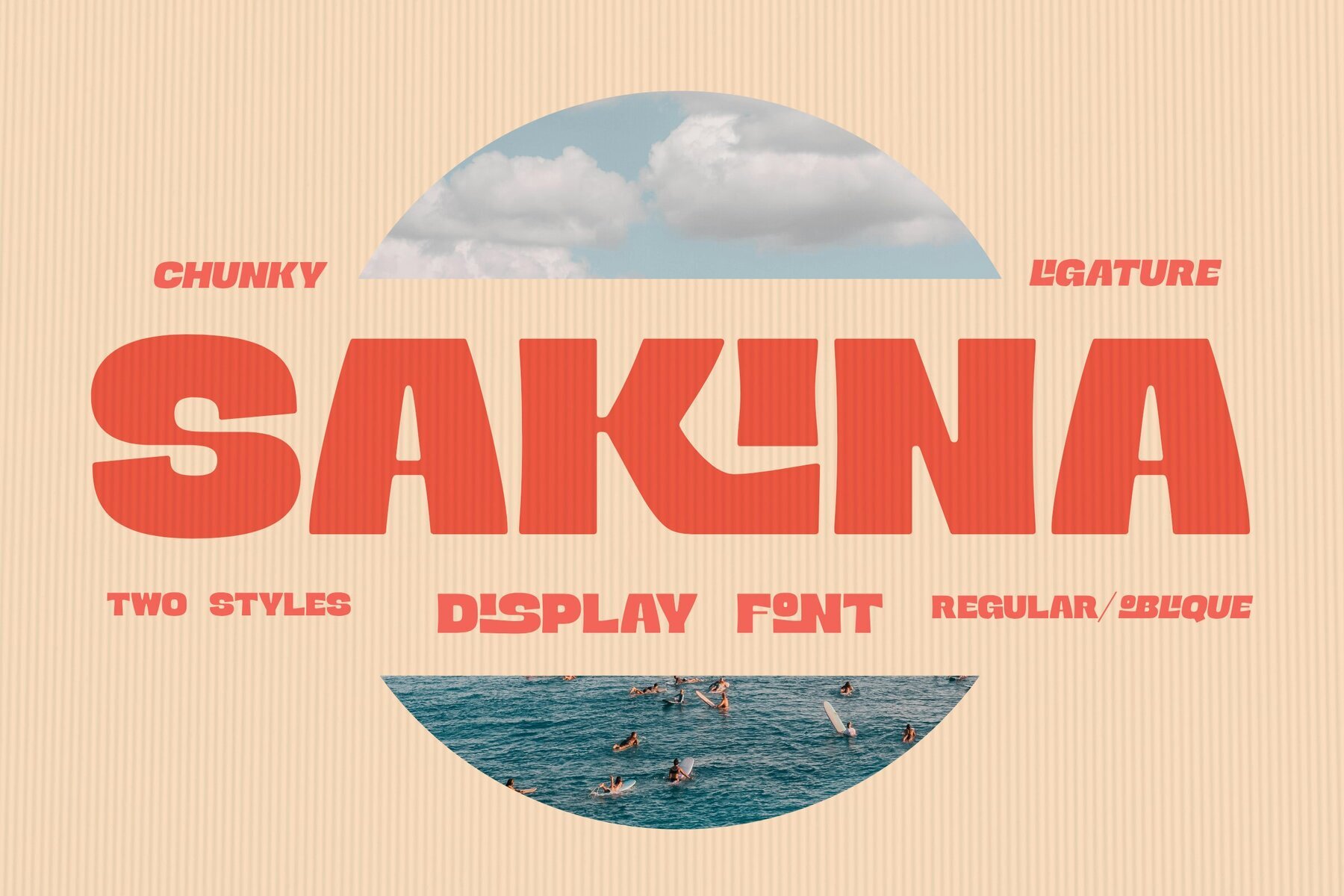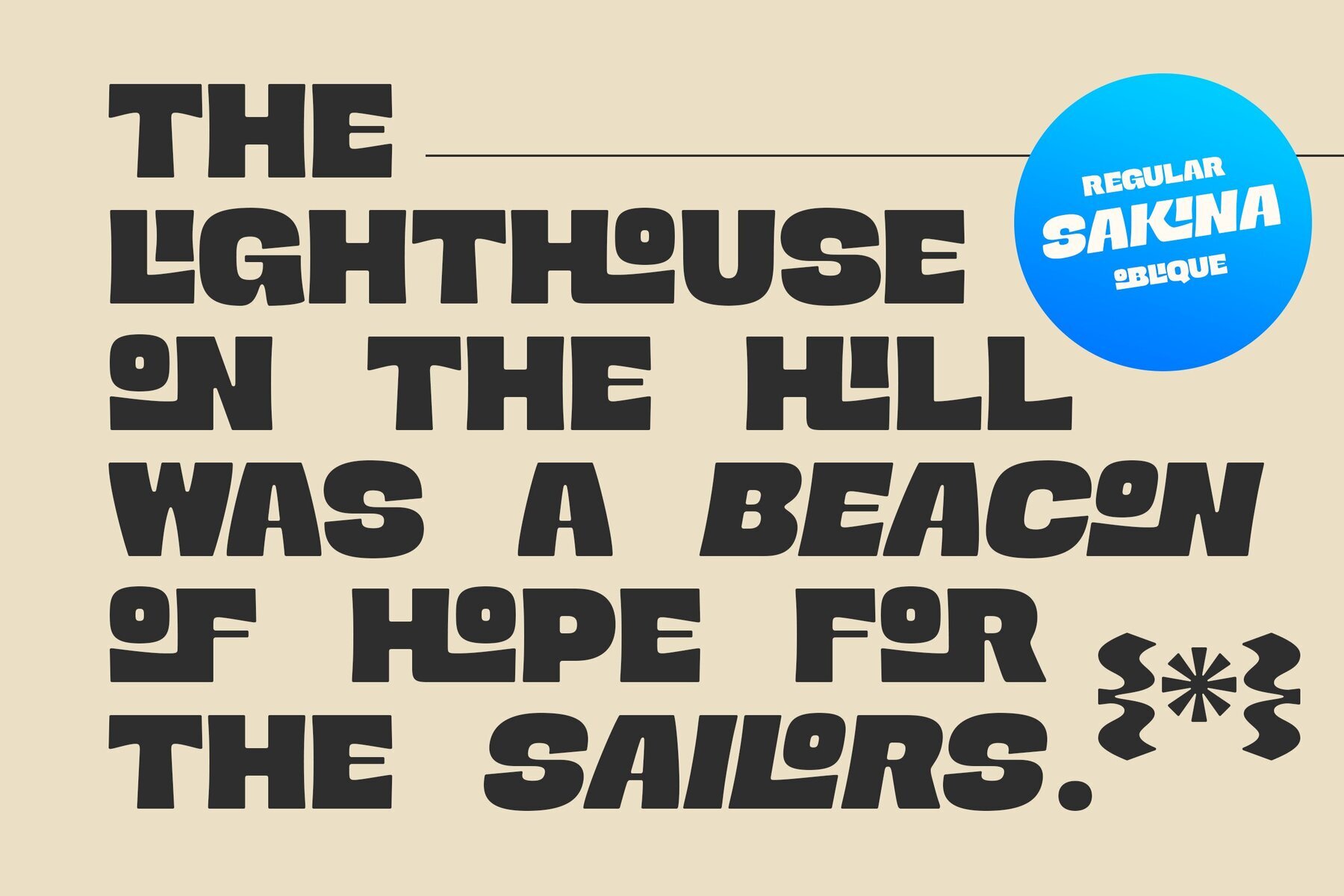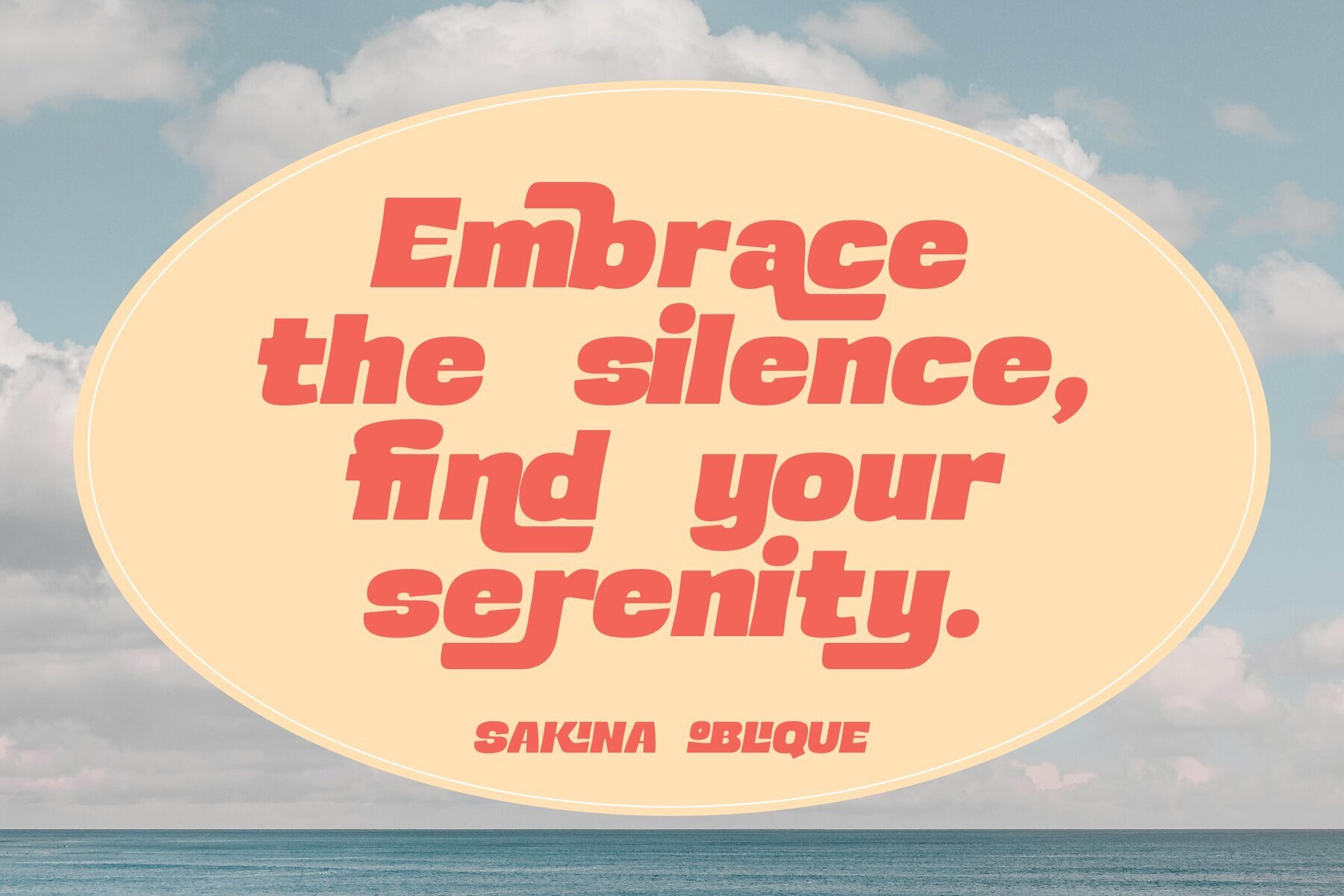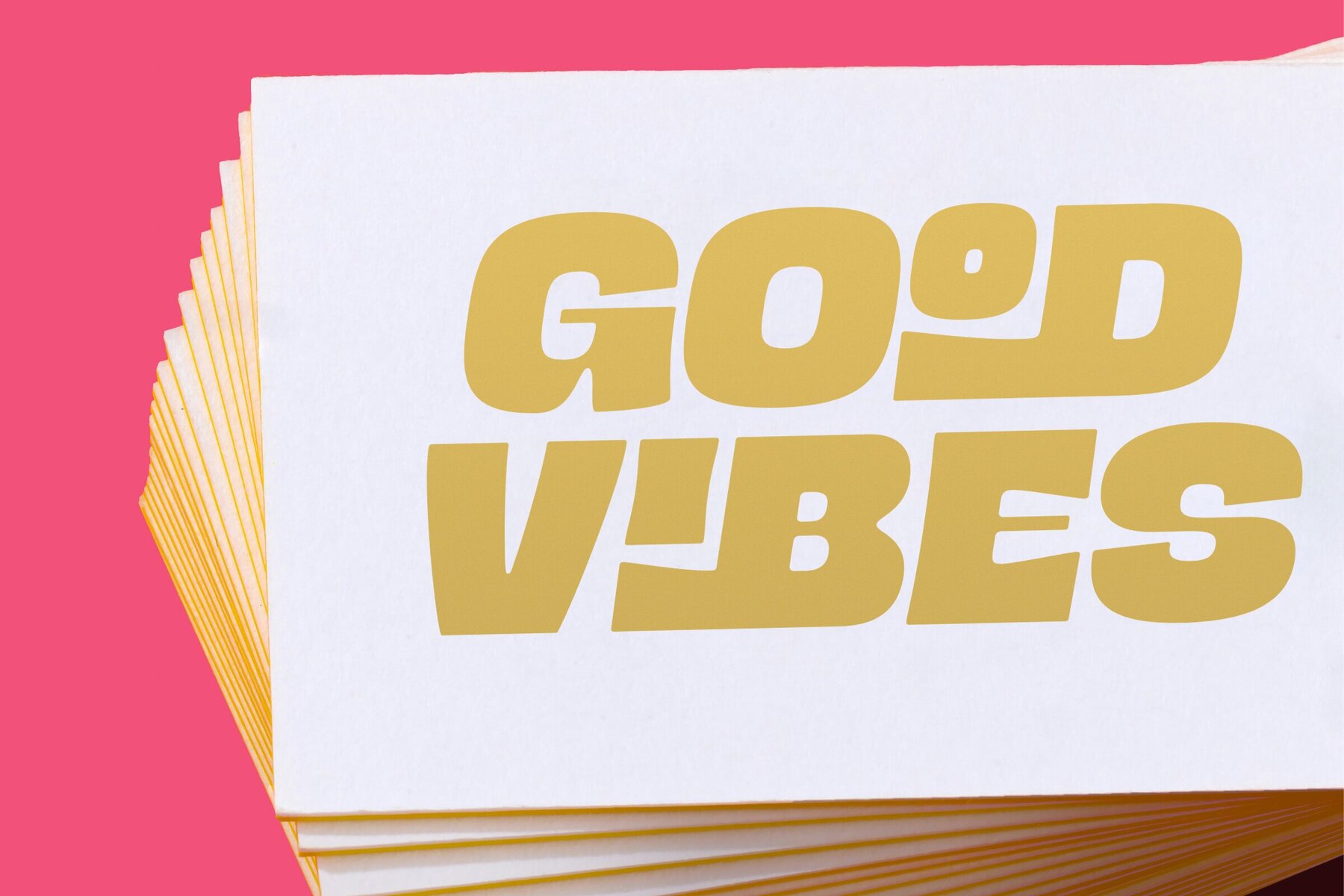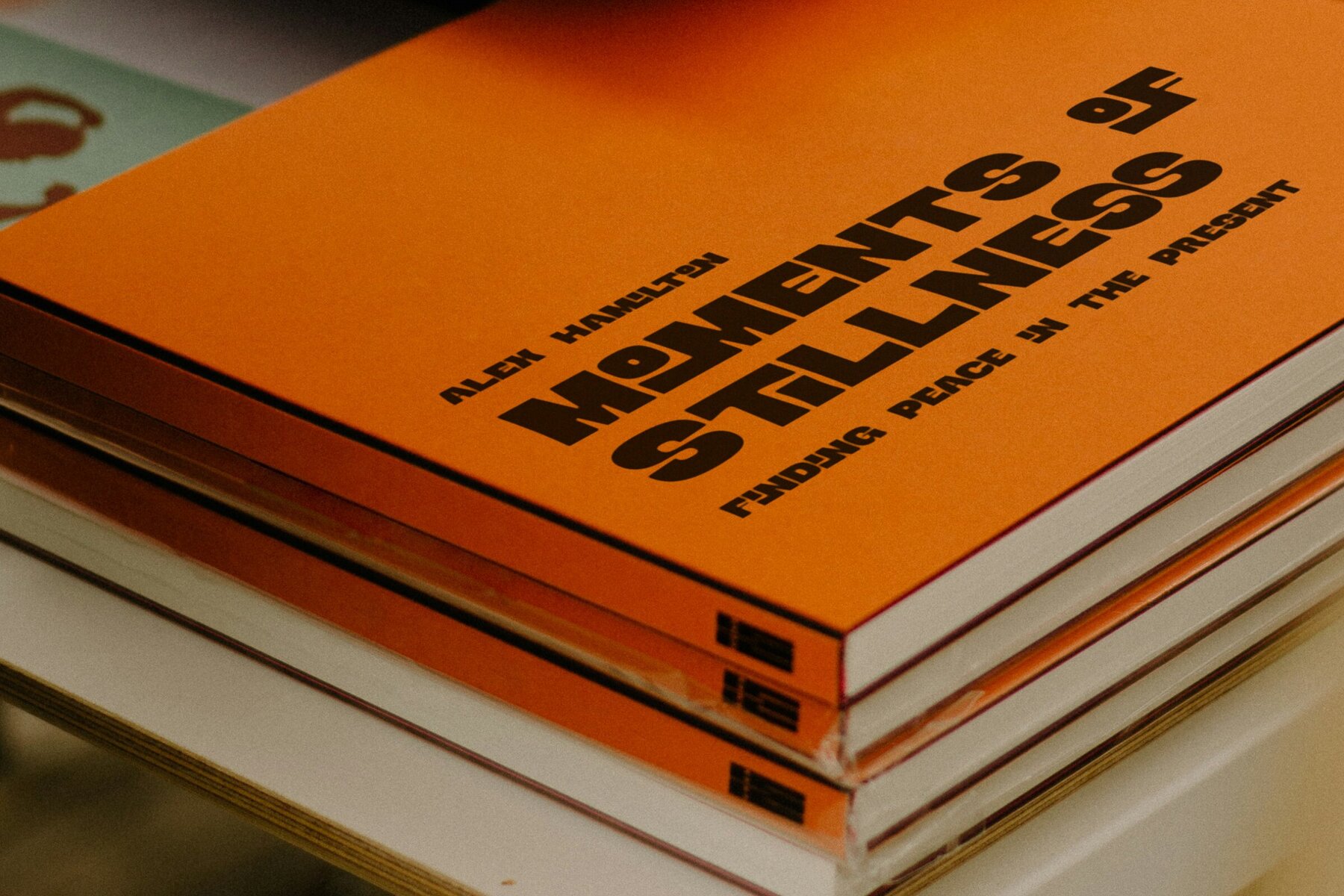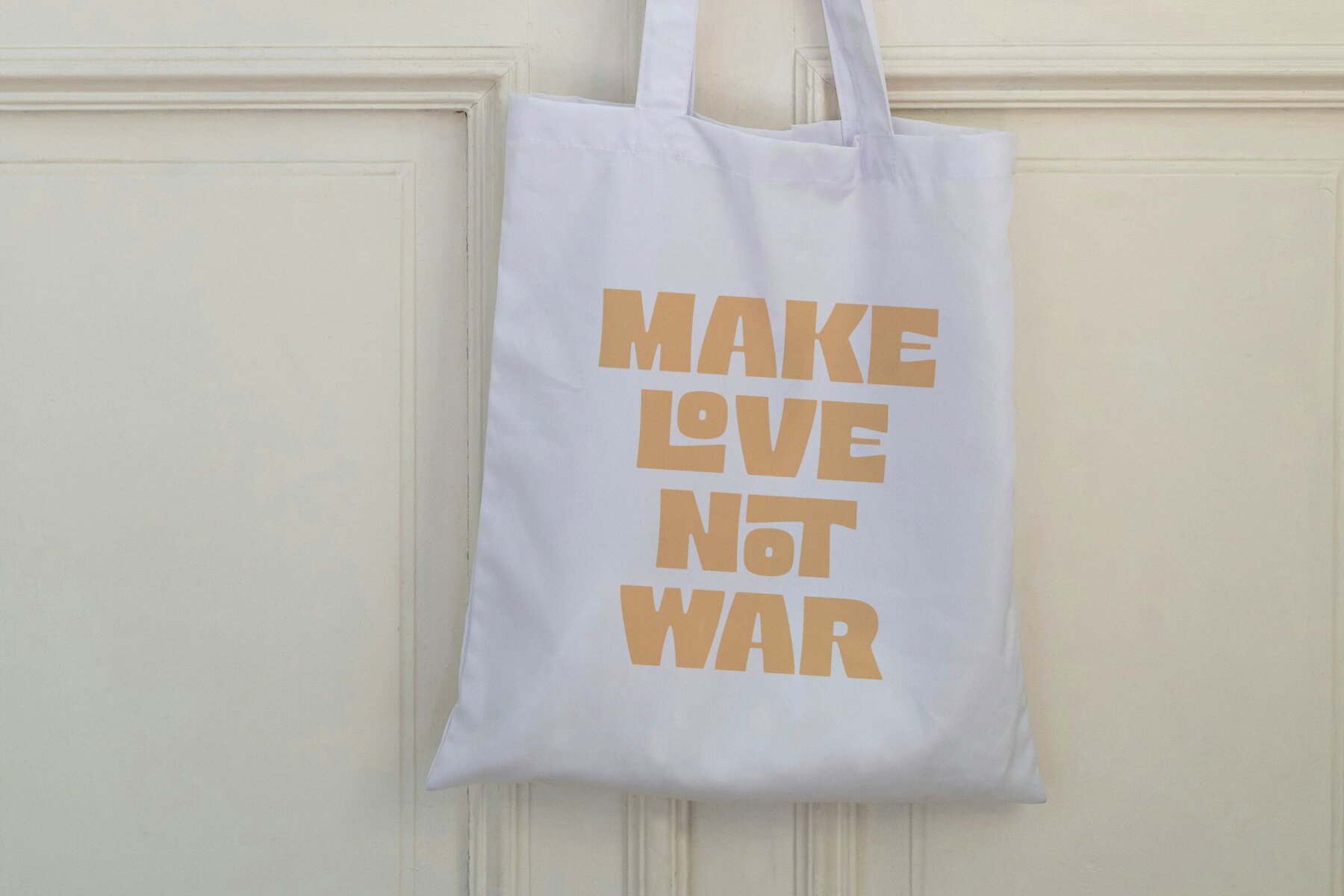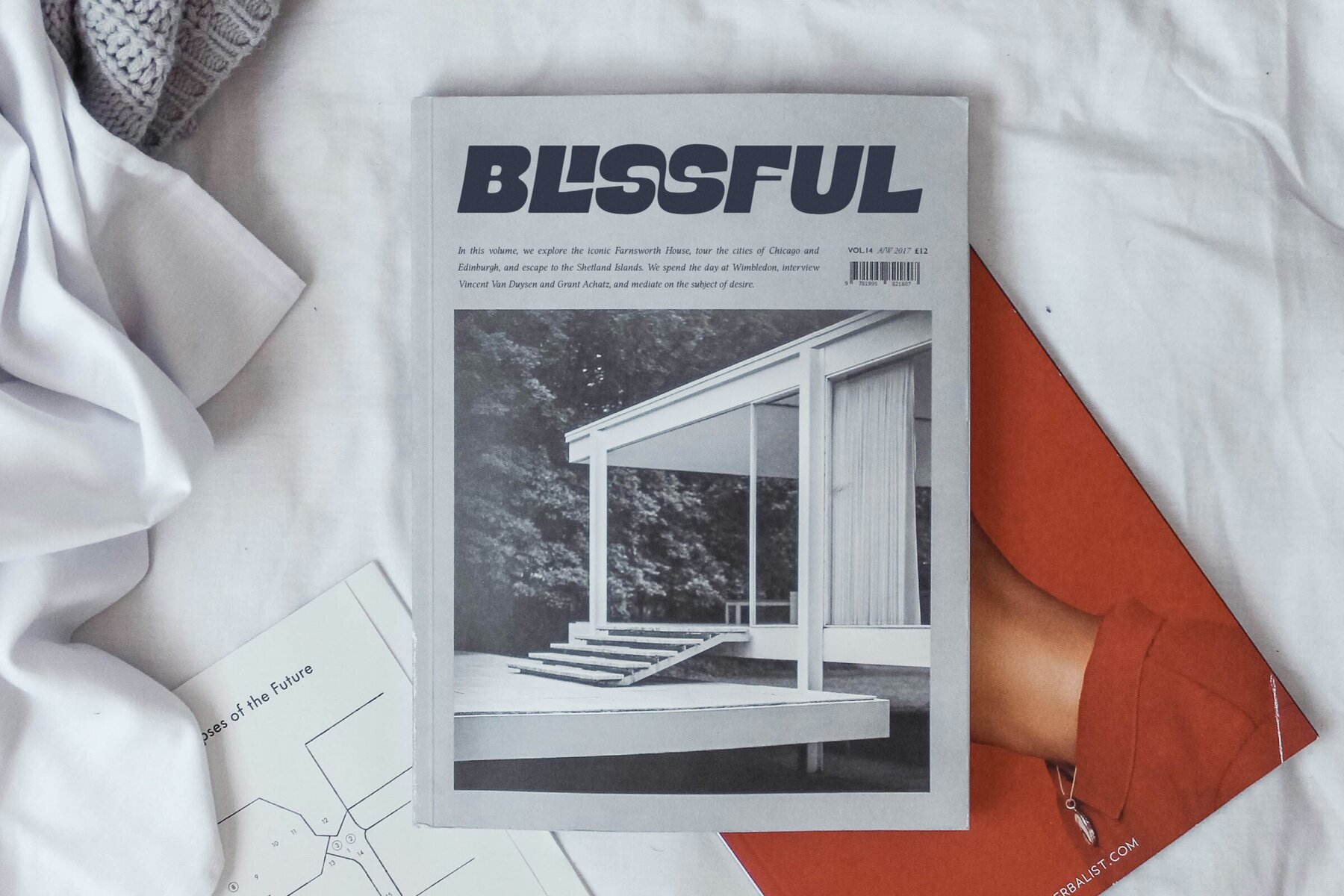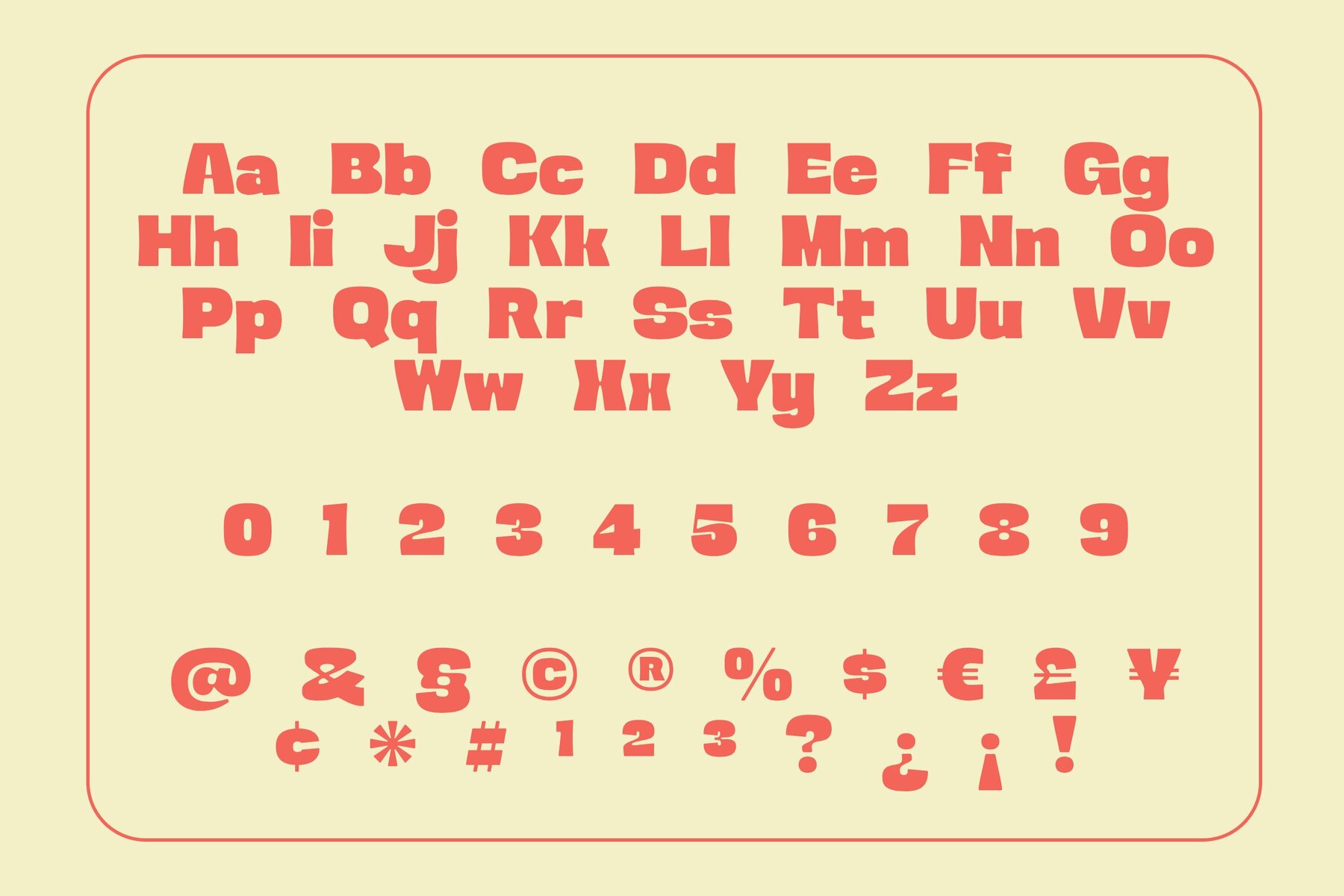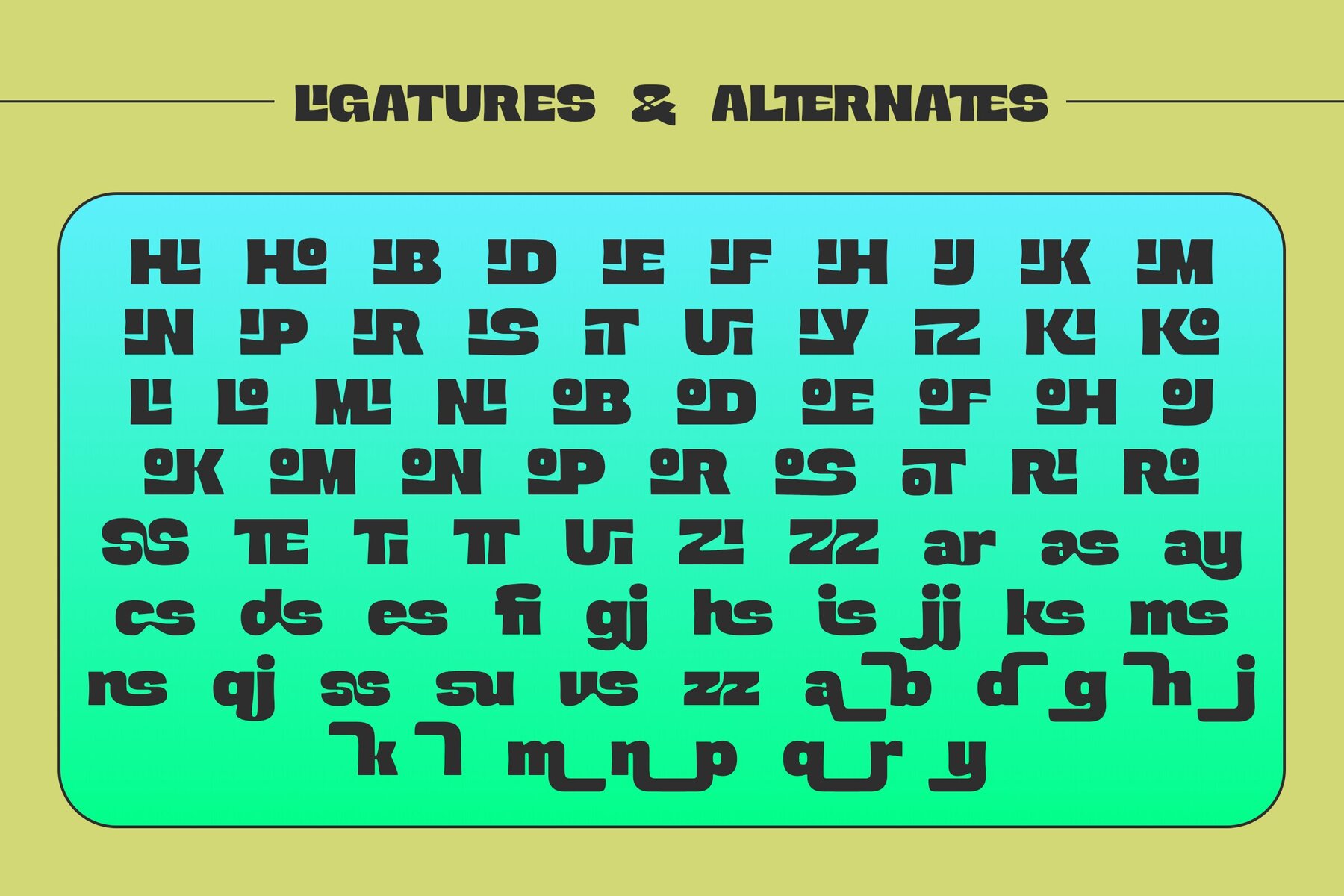
Sakina Font
Sakina is a striking display typeface that commands attention with its bold, high-contrast, retro-inspired design. This typeface brings a sense of playful nostalgia to any project. Featuring an extensive selection of custom ligatures, Sakina allows for unique and captivating character combinations. Ideal for posters, logos, headlines, and branding, Sakina ensures your message stands out with flair and originality.